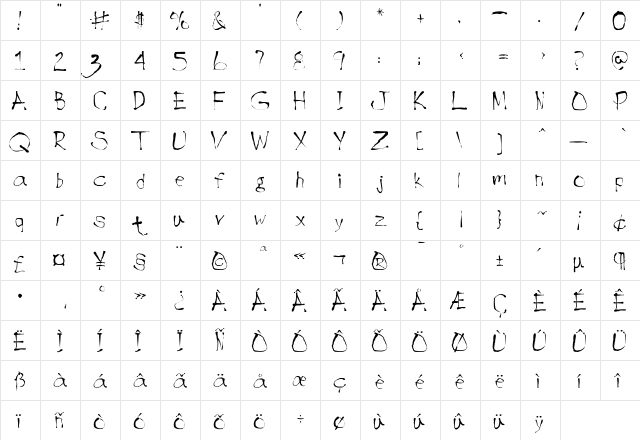
Handwrite Inkblot
| Style | Inkblot |
Design Context for Handwrite Typeface
Handwrite brings a calligraphic fluidity to the page — its connecting strokes and expressive curves give it an unmistakably human quality.
Font Pairing: Combine Handwrite with a simple geometric sans for maximum contrast — the tension between flowing curves and clean structure is a classic typographic pairing.
Pro Tip: Use Handwrite for short runs of text — names, titles, or taglines. Extended body copy in script faces tires the eye quickly.